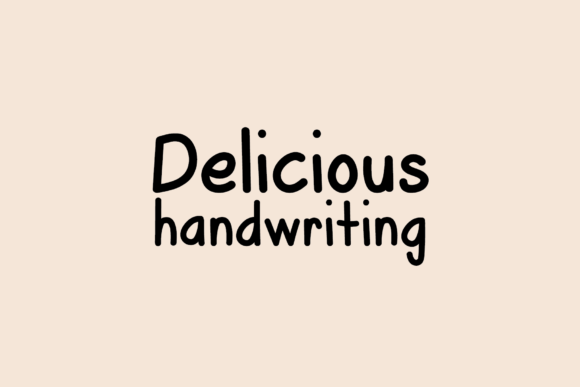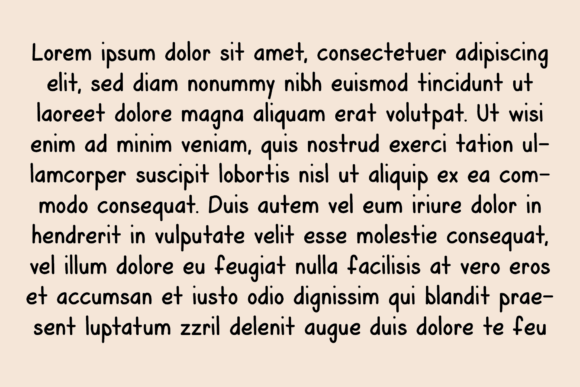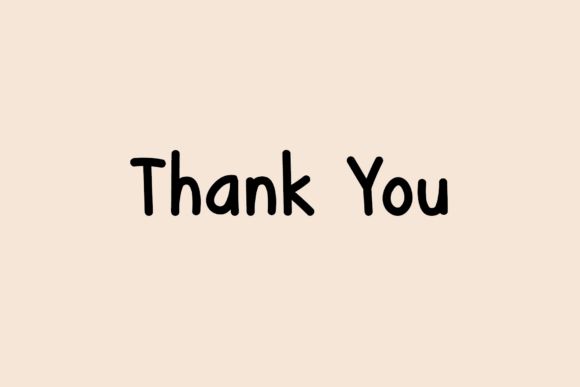
Unlocking Creativity with the Delicious Font
Have you ever stared at a blank page, trying to come up with the perfect design for a project? The cursor blinks, and your mind goes blank. That’s when the creative spark hits – you start thinking about the perfect font to bring your idea to life. For many designers, finding that perfect font can make all the difference.
Enter Delicious Font, a simple yet friendly handwritten font that adds a touch of whimsy to any design. This charming typeface is designed to brighten up your projects, making it perfect for logos, wedding invitations, quotes, and advertisements. With Delicious Font, you can confidently add a personal touch to your designs, knowing that it will elevate your work and leave a lasting impression on your audience.
Delicious Font Key Features
- Font Family: Delicious Font is a modern sans-serif font family, designed to be versatile and stylish.
- Character Count: Delicious Font includes 400 characters, including uppercase and lowercase letters, numbers, punctuation, and special characters.
- Font Size: Available in 6 weights, ranging from Light to Black, to suit various design needs.
- Resolution: Optimized for high-resolution displays, including Retina and 4K screens, with a resolution of up to 300 DPI.
- Unique Characteristics: Delicious Font features a unique blend of geometric and organic shapes, with subtle rounded edges and a friendly, approachable feel.
Delicious Font Review
Overall, I think Delicious Font is a solid choice for any design project. Here are some things that work well:
- ✨ The font is highly customizable, with a wide range of weights and styles to choose from.
- ✨ The font is optimized for web use, with smooth and clear typography that looks great on high-resolution displays.
- ✨ The font is also suitable for print materials, with crisp and clean lines that make it perfect for business cards, brochures, and other marketing materials.
- ⚠️ The font can look a bit bland and generic in some contexts, which may not be ideal for designs that require a lot of personality.
- ⚠️ The font’s italics can be a bit uneven, which may be distracting in some situations.
- ⚠️ The font is not as extensive as some other fonts in the same category, which may limit its versatility in certain projects.
Overall, I would recommend Delicious Font for most design projects. While it may not be the most exciting or unique font, it’s a solid choice that’s easy to work with and looks great in most contexts.
Delicious Font Practical Application Guide
Tips for Getting the Most Out of Delicious Font
Experiment with different font sizes and styles to create visual interest. Use Delicious Font in combination with other fonts to create a unique and eye-catching design. Consider using Delicious Font for headings and titles to draw attention to important information.
Delicious Font is ideal for food and beverage branding, recipe websites, and culinary-themed designs. It’s also suitable for fashion and lifestyle brands that want to convey a sense of warmth and approachability.
What is the character set of Delicious Font?
Delicious Font includes a comprehensive character set that supports Latin, Cyrillic, and Greek alphabets. The font also includes a wide range of punctuation marks, symbols, and diacritics. The character set is based on the Unicode